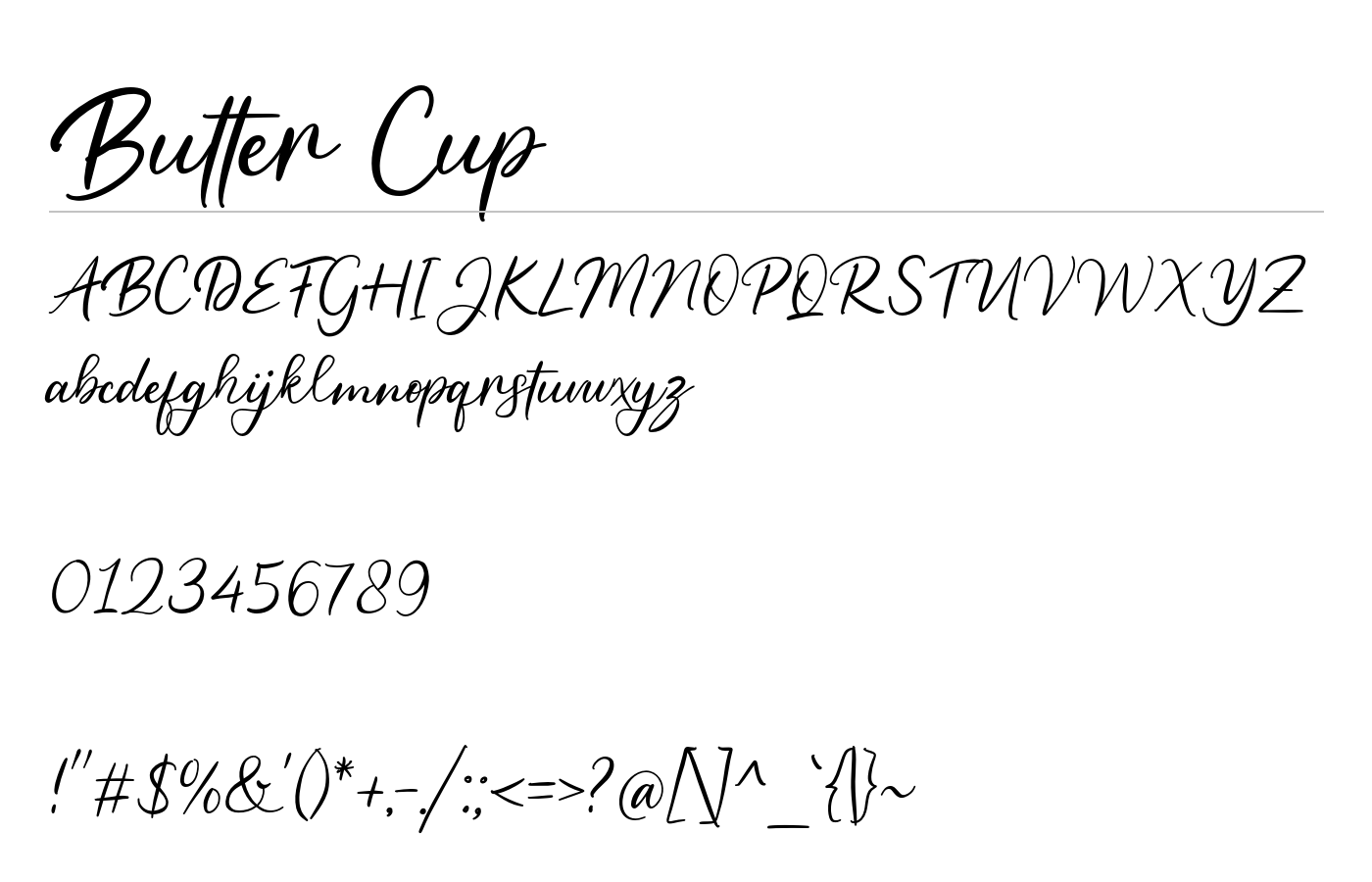
Butter Cup is a lively, modern script font with a handwritten, casual feel that combines elegance with playful charm. Its flowing strokes, varied weight, and slightly slanted characters make it perfect for creative branding, invitations, and eye-catching headlines where a personal, feminine touch is desired. This font works best in designs that seek a warm, approachable, yet stylish personality.
Butter Cup Font
About Butter Cup Font